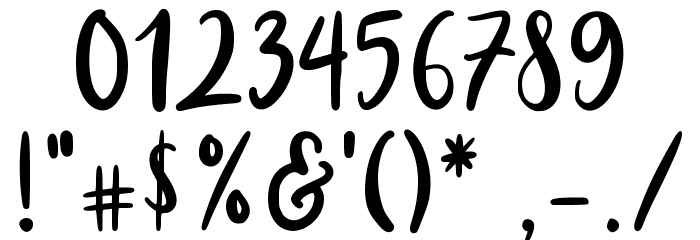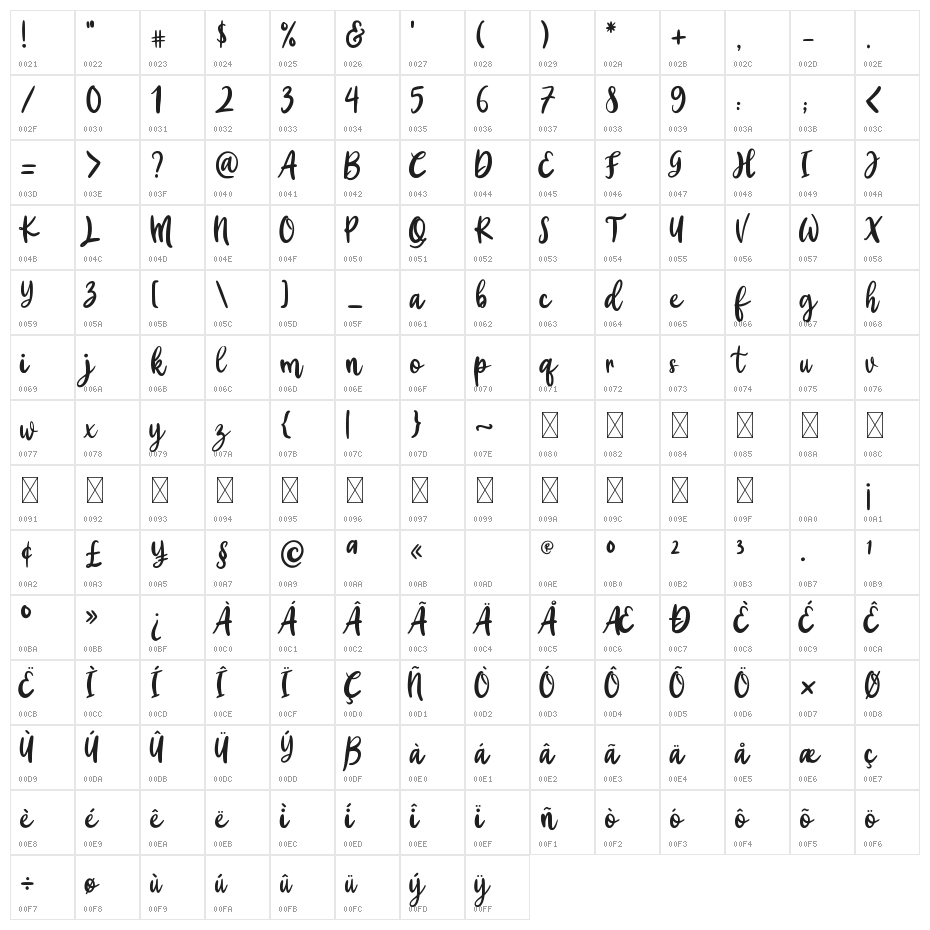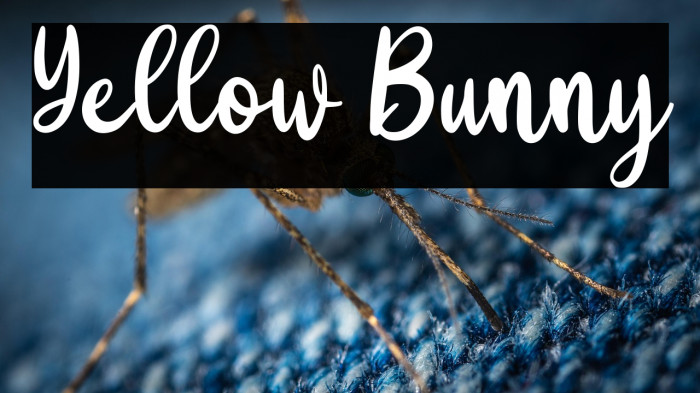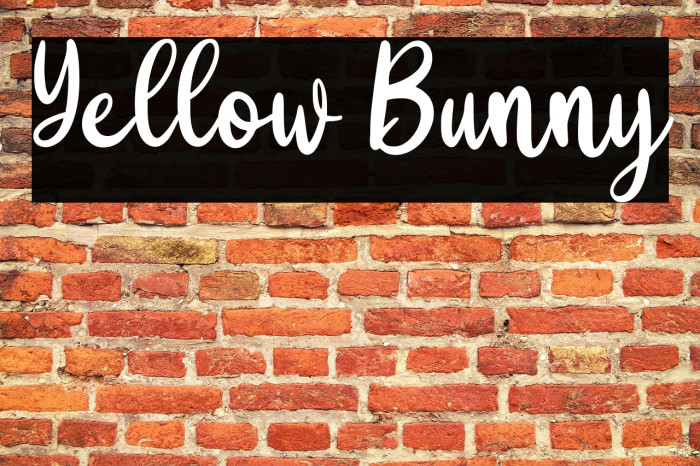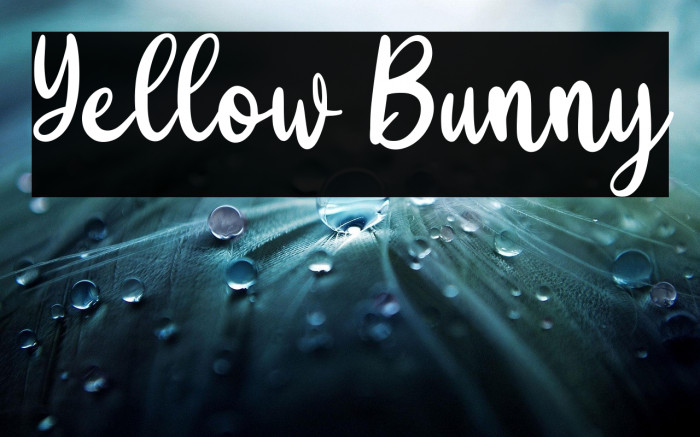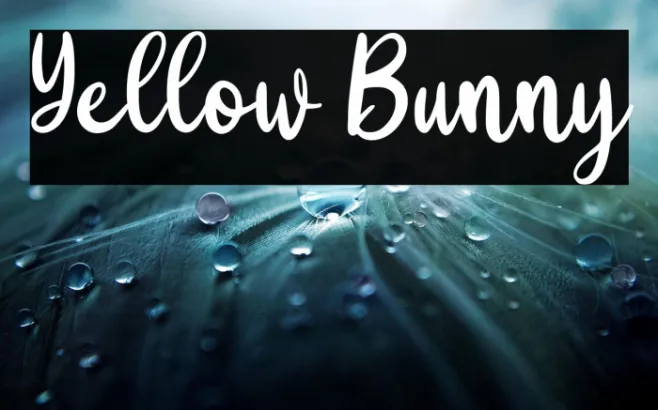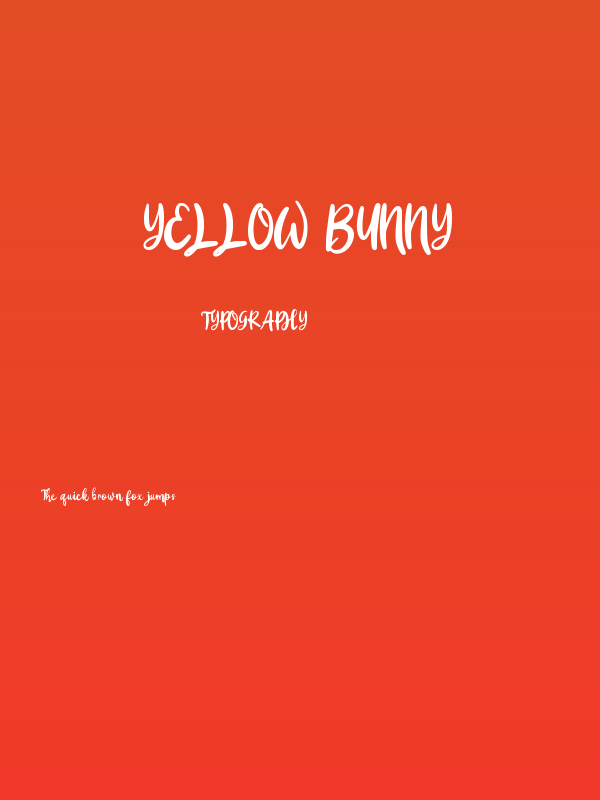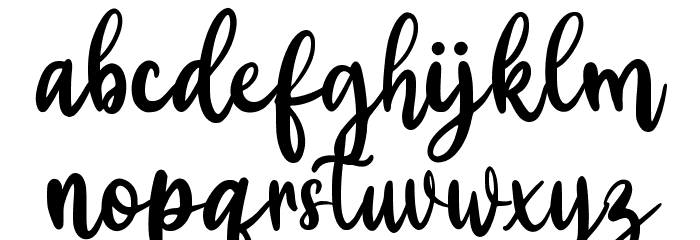
Yellow Bunny Font
Yellow Bunny Description
This playful and energetic font features a handwritten style with a lively and dynamic appearance. The characters are bold and slightly slanted, giving a sense of movement and spontaneity. The uppercase letters are tall and expressive, while the lowercase letters maintain a consistent flow with rounded edges and smooth curves. The numerals are clear and easy to read, matching the overall whimsical style. Special characters are creatively designed, adding to the font's charm. This font exudes a friendly and approachable vibe, making it perfect for projects that require a personal touch.